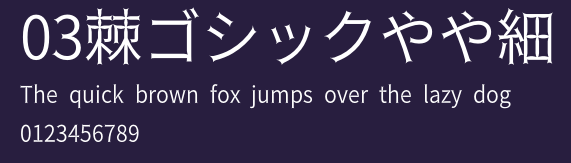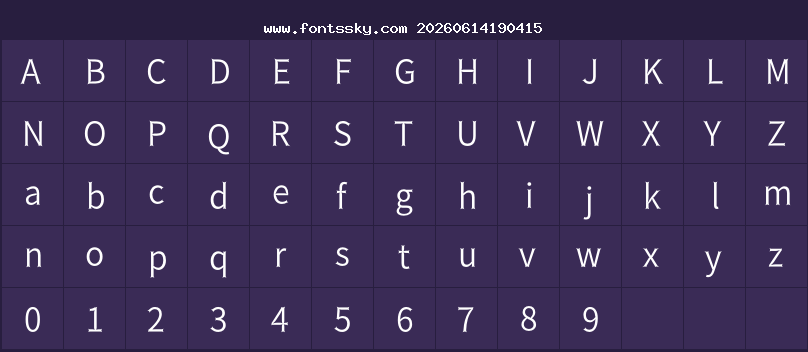
03棘ゴシックやや細 Preview
About 03棘ゴシックやや細.otf
03棘ゴシックやや細.otf is a modern, elegant sans-serif font designed for ultimate readability and visual harmony. Perfect for branding, headlines, web design, and print materials.